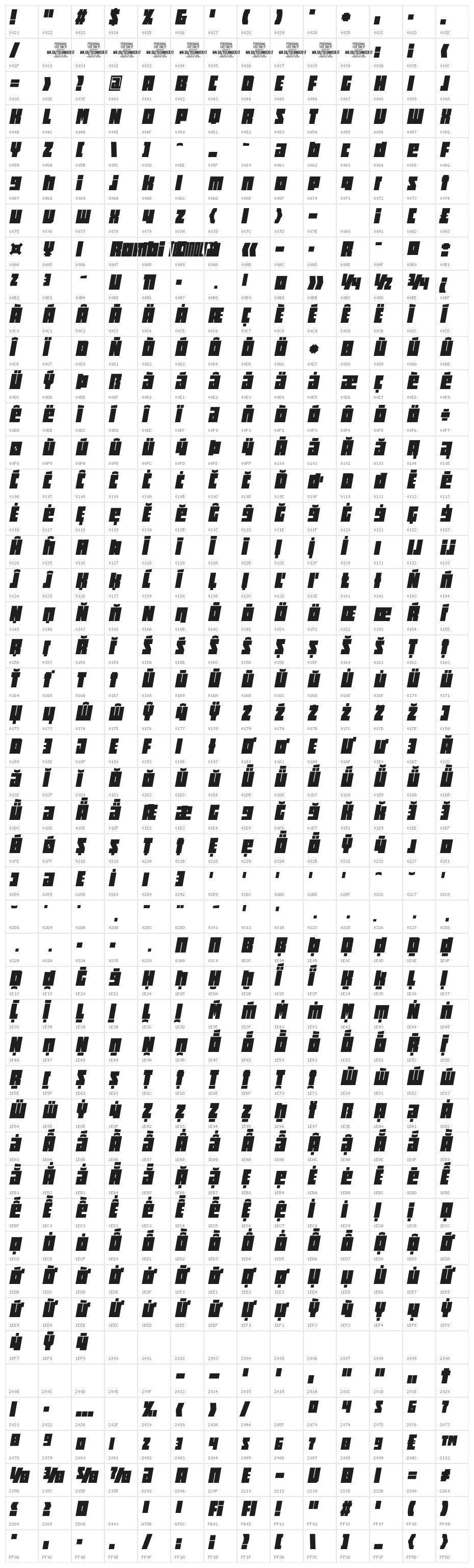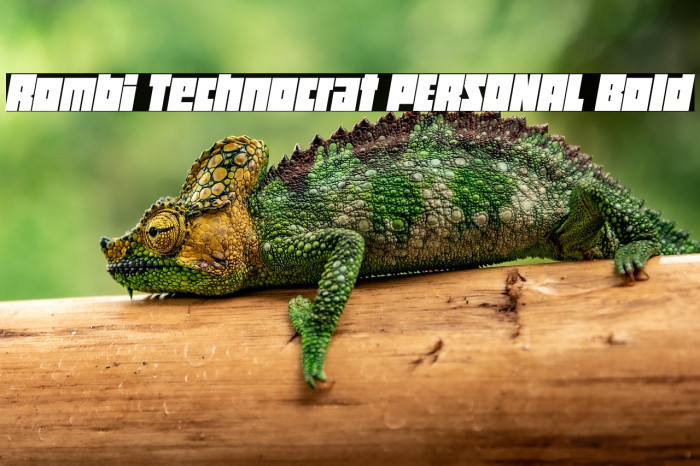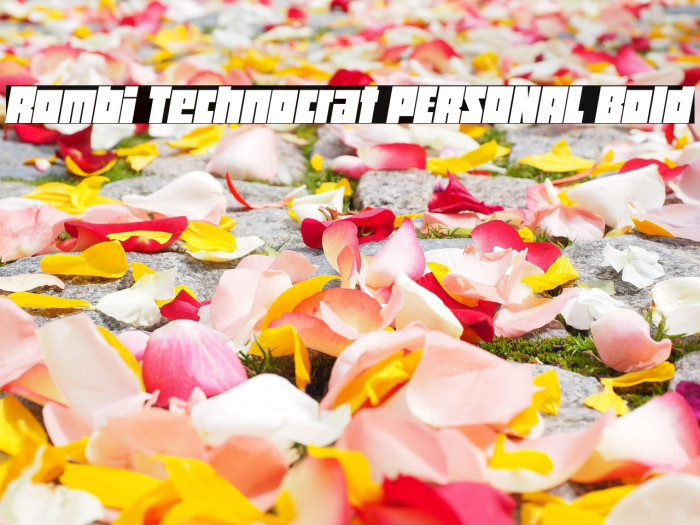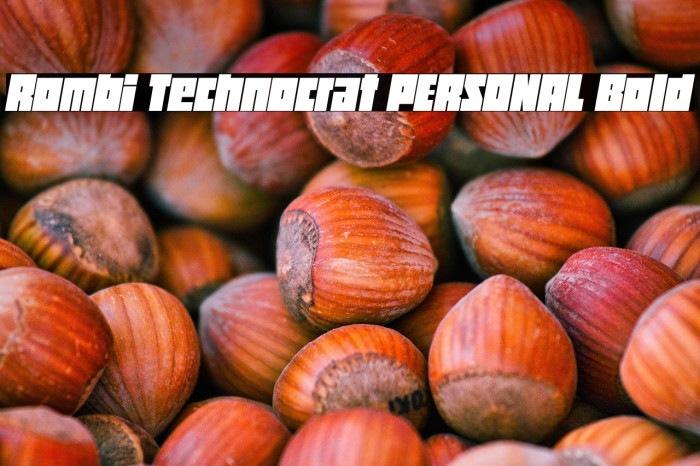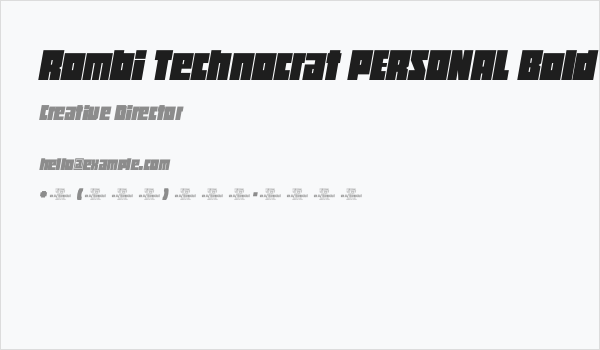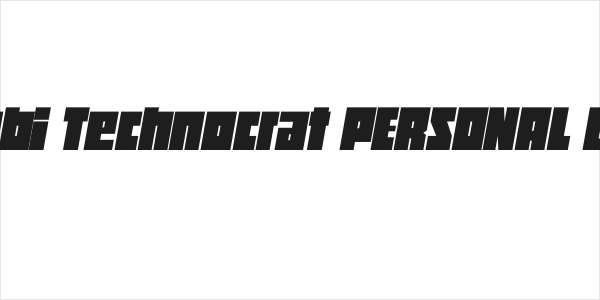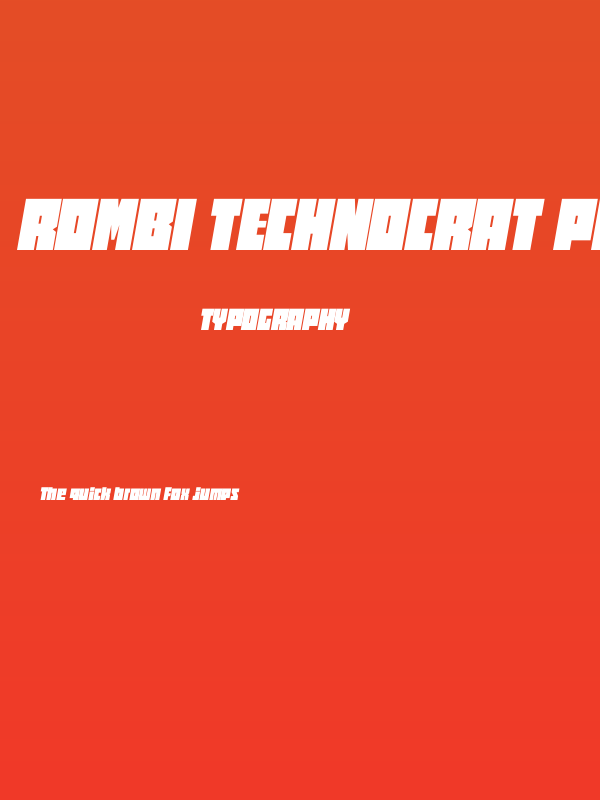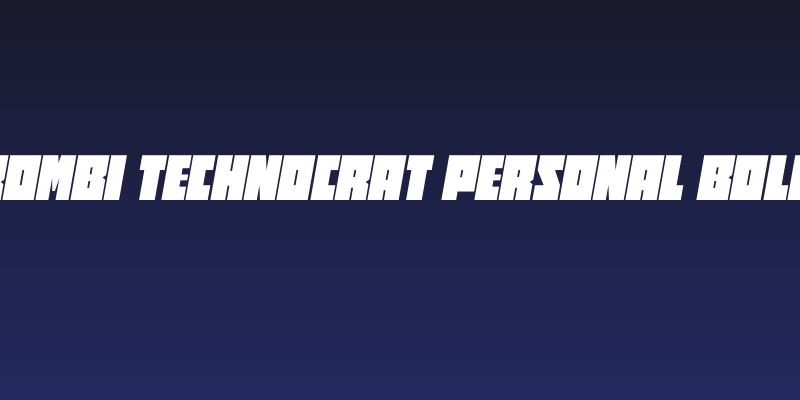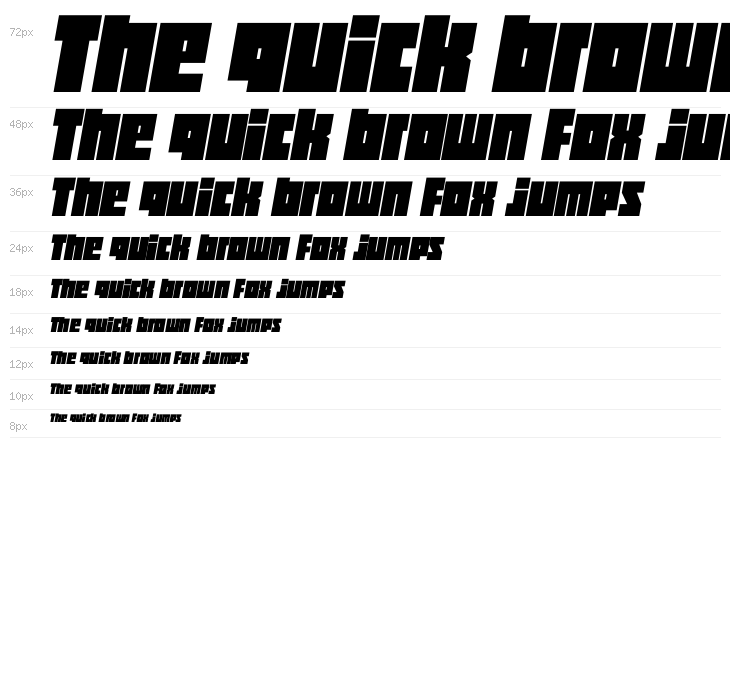
This font features a bold, geometric design with a strong emphasis on angular shapes and sharp edges. Each character is crafted with a futuristic aesthetic, showcasing a unique blend of modernity and industrial influence. The uppercase and lowercase letters maintain a consistent width, creating a uniform appearance across the typeface. The numbers and special characters are designed to match the boldness and angularity of the alphabet, ensuring a cohesive look. This font is ideal for projects that require a striking and impactful visual presence.
Proposed ProjectsIdeal for technology branding, sci-fi posters, video game titles, and modern logos.